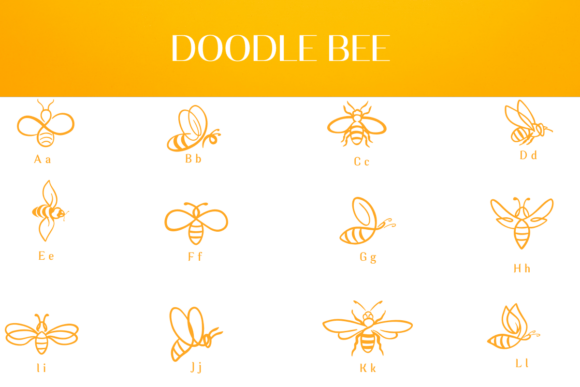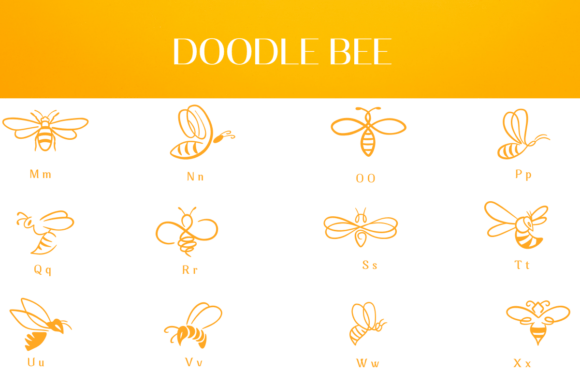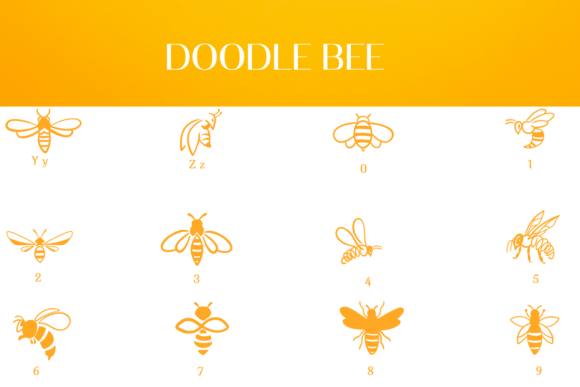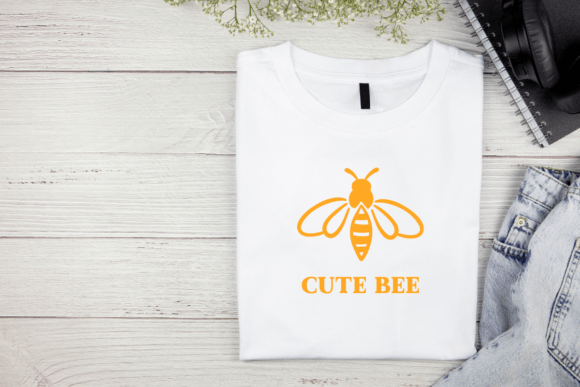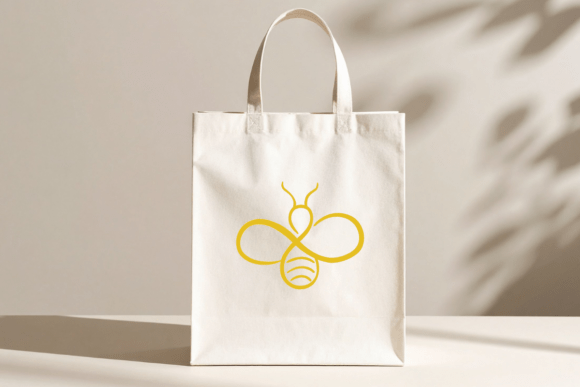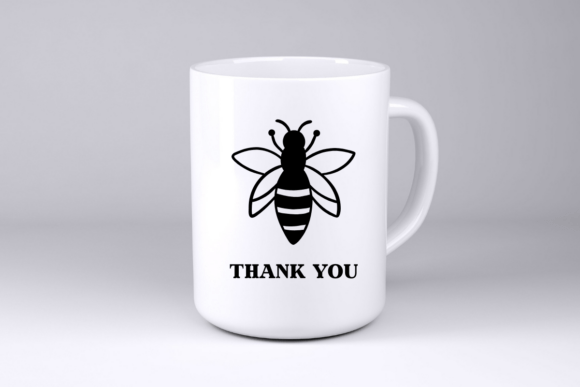
Bring Your Creative Ideas to Life with Doodle Bee Font
You know that moment when you’re brainstorming ideas for a new project, and suddenly a spark of inspiration hits you? It’s like a lightbulb has gone off in your head, and you can’t wait to bring your vision to life. For designers like you, finding the right font can make all the difference between a mediocre design and a truly exceptional one.
Enter Doodle Bee Font – a charming dingbats font that’s perfect for adding a playful touch to your creative projects. This cute and whimsical font is designed to bring a smile to your face, and a dash of fun to your designs. With Doodle Bee Font, you can add a personal touch to your work and make it truly stand out from the crowd.
As a valuable tool for designers, Doodle Bee Font offers endless possibilities for creative expression. Whether you’re working on a children’s book, a graphic novel, or a marketing campaign, this font is sure to add a touch of magic to your work.
Doodle Bee Font Key Features
- Font Family: Doodle Bee is a unique, hand-drawn font with a playful and whimsical feel, suitable for creative projects and designs.
- Size: Doodle Bee Font comes in a range of sizes, from 12 points to 72 points, making it versatile for use in various contexts.
- Resolution: Optimized for print and digital use at 300 DPI, ensuring high-quality output regardless of the medium.
- Unique Characteristics: The font features intricate doodles and illustrations, adding a touch of personality and charm to any design.
- Character Set: Includes a comprehensive set of uppercase and lowercase letters, numbers, and punctuation marks, making it a self-contained font solution.
Doodle Bee Font Review
I’ve worked with a lot of fonts in my career, and I have to say that Doodle Bee Font is a unique one. It’s a fun, playful font that’s perfect for projects that need a little extra personality.
- ✨ It’s incredibly versatile – it can be used for anything from children’s book covers to social media graphics.
- ✨ The font is easy to read, even at smaller sizes, which is a major plus for designers.
- ✨ The font is highly customizable, which is great for designers who like to tweak and perfect their designs.
- ⚠️ The font can be a bit too playful for more formal projects, so be sure to use it sparingly.
- ⚠️ The font may not be suitable for projects that require a lot of text, as it can get a bit overwhelming.
- ⚠️ Some users may find the font a bit too ‘doodle-like’ and not suitable for professional branding.
Overall, I think Doodle Bee Font is a great addition to any designer’s toolkit. It’s a fun, playful font that’s perfect for adding a little extra personality to your projects. Just be sure to use it wisely and in the right context.
Doodle Bee Font: A Practical Application Guide
To get the most out of Doodle Bee Font, use it for:
1. Creating whimsical titles and headings.
2. Adding a touch of personality to social media graphics.
3. Designing children’s books or educational materials.
4. Creating unique invitations or event graphics.
Alternatives to Doodle Bee Font for Designers
Pacifico is a beautiful, elegant script font perfect for invitations, wedding stationery, and other formal events. It’s ideal for designers who want a sophisticated and refined look.
Compared to Doodle Bee Font, Pacifico is more formal and less playful. While Doodle Bee Font is great for casual designs, Pacifico is better suited for high-end projects that require a touch of luxury.
Great Vibes is a modern, cursive font that’s perfect for creative projects, such as posters, social media graphics, and advertising materials. It’s ideal for designers who want a fun and energetic look.